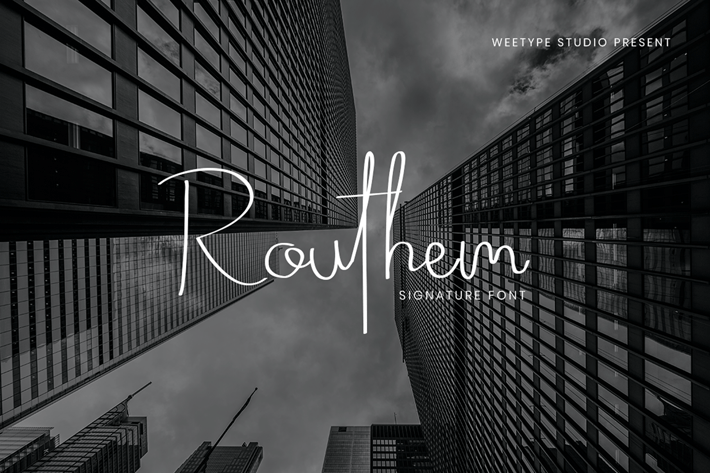
Routhem - Signature Script Fonts
Routhem Signature Script
Routhem Signature Script consisting of a fashionable sophisticated signature-style script with its own unique curves and an elegant inky flow.
Routhem Signature Script is perfect for branding projects, logos, wedding designs, social media posts, advertisements, product packaging, product designs, label, photography, watermark, invitation, stationery, and any projects that need handwriting taste.
- Standard glyphs